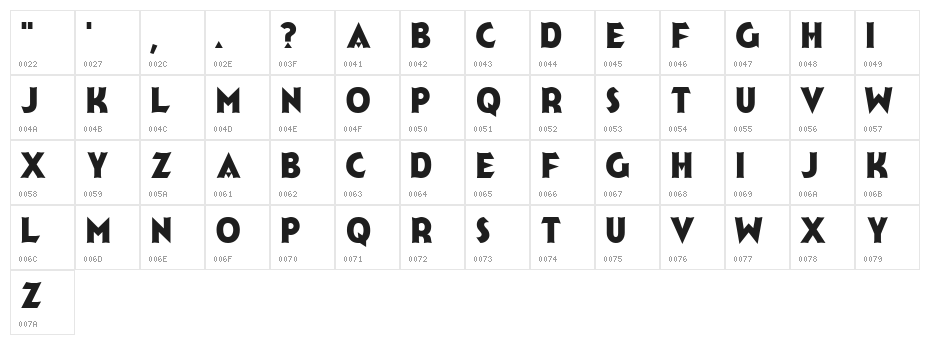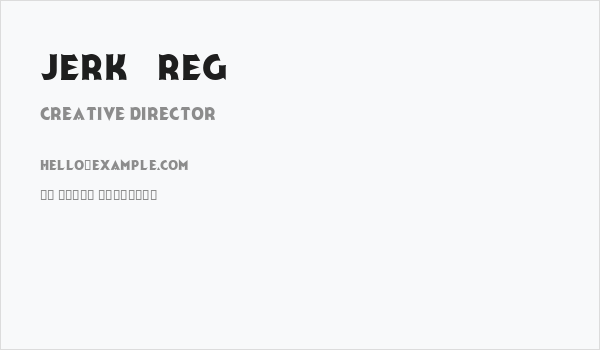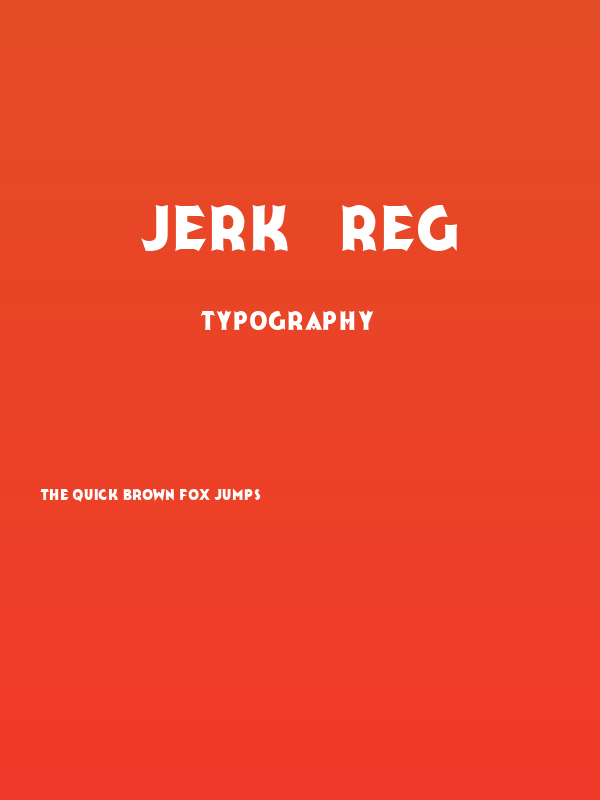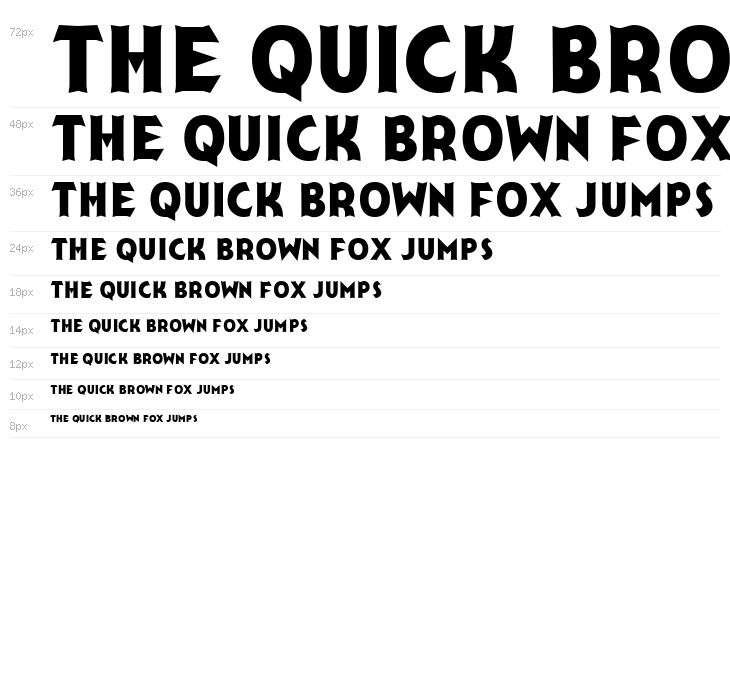
Jerk Reg Font
Jerk Reg Description
This font features a bold and striking design with sharp, angular edges and a geometric structure. The uppercase letters are characterized by their strong presence and unique cut-out shapes that give a modern and edgy feel. The font maintains a consistent weight throughout, providing a uniform appearance. The characters are tightly spaced, enhancing the compact and impactful look. The overall style is decorative, making it suitable for attention-grabbing headlines or logos. Its distinctive style sets it apart, making it ideal for projects that require a bold statement.
Overall StyleModern, Decorative
Proposed ProjectsIdeal for branding, posters, headlines, and any design needing a bold, modern touch.